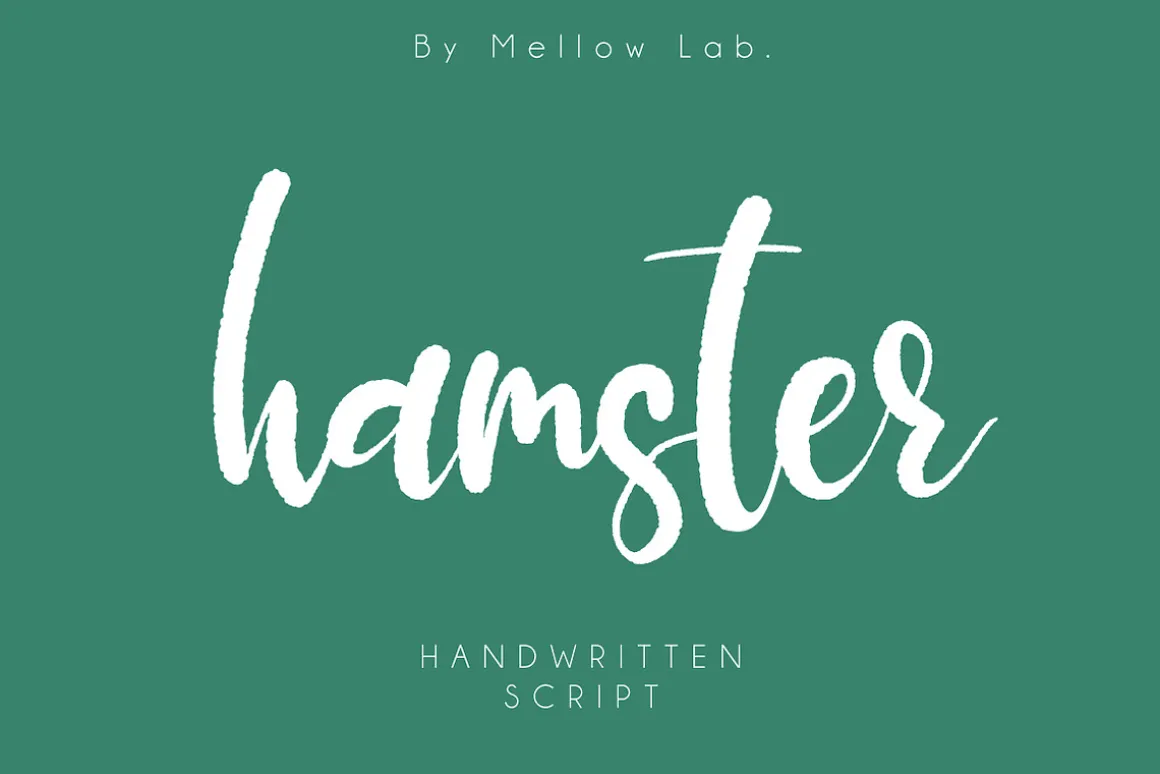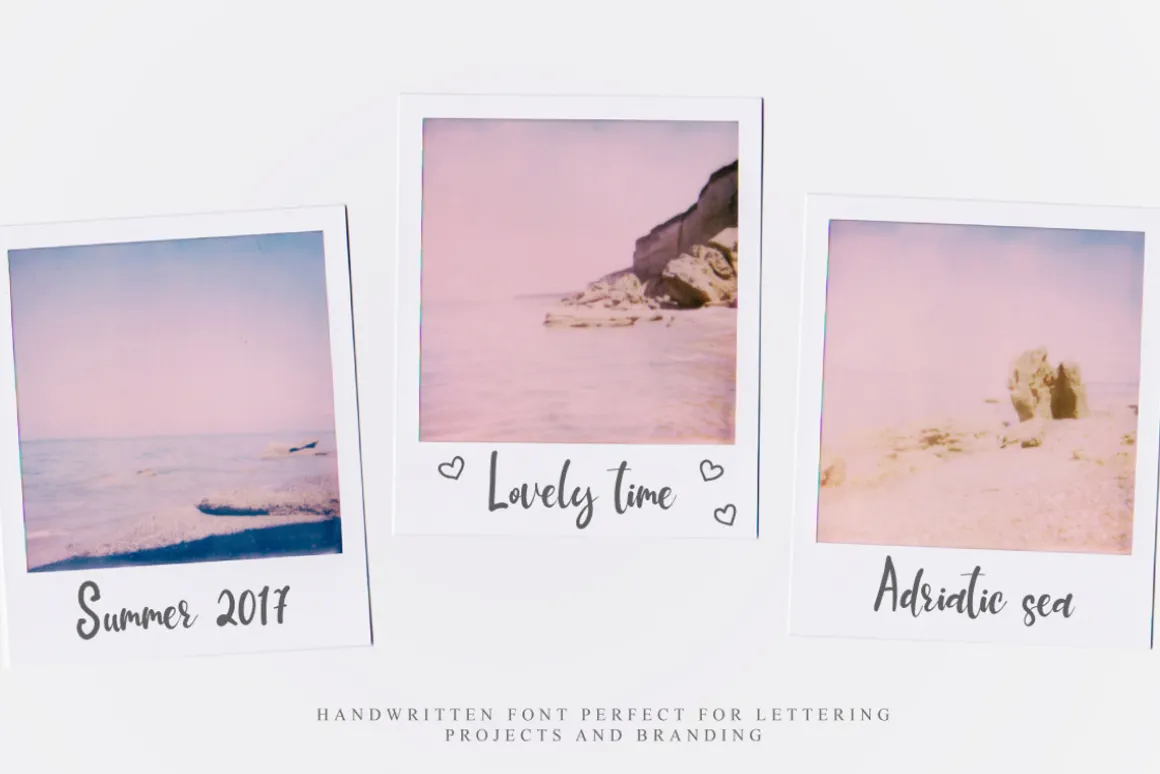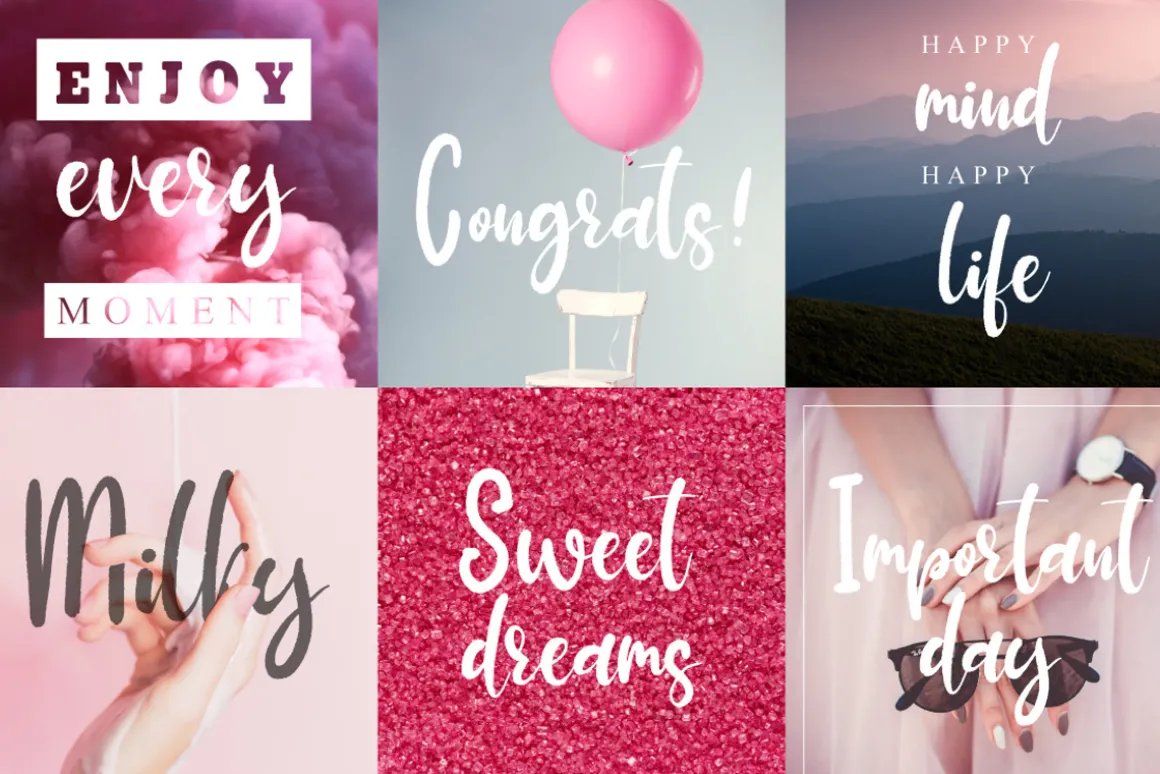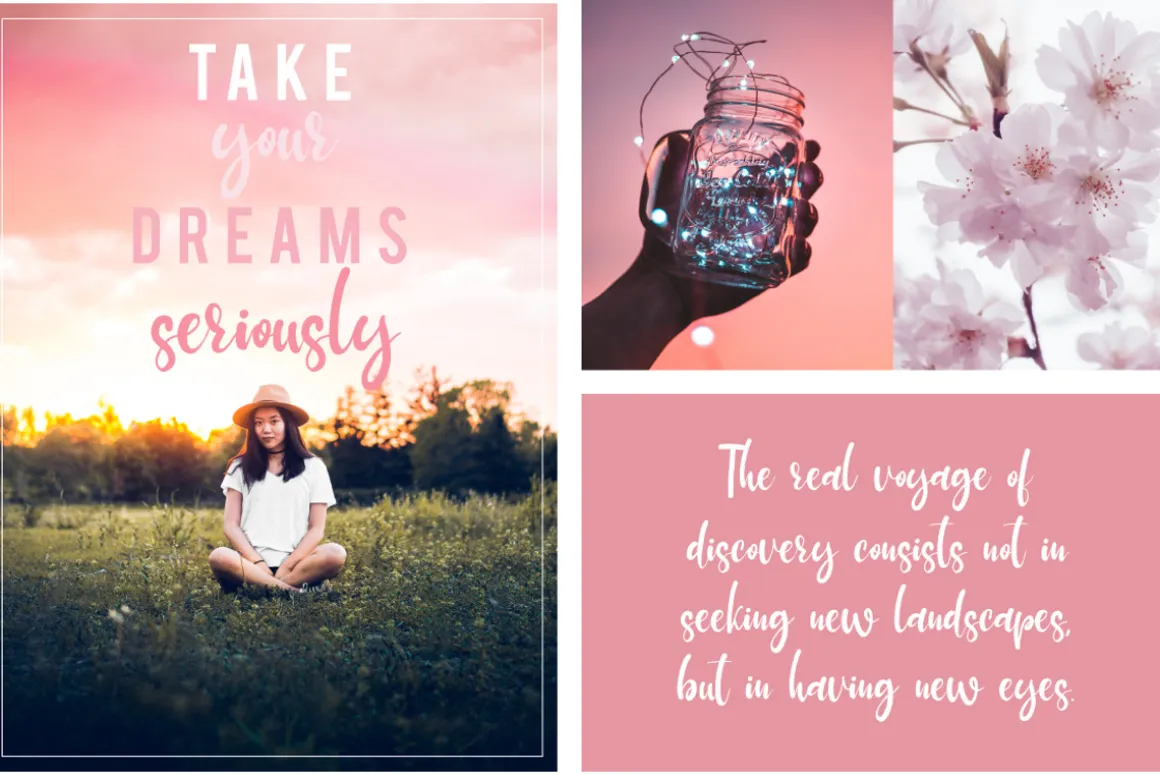
Hamster font
It’s handwritten script. This font is ideal for branding and decorate your any project.
This font are perfect for wedding invitation or your blog. Also with their help, you can create a logo or beautiful frame for your home. Or just use for your small business, book covers, stationery, marketing, magazines and more.